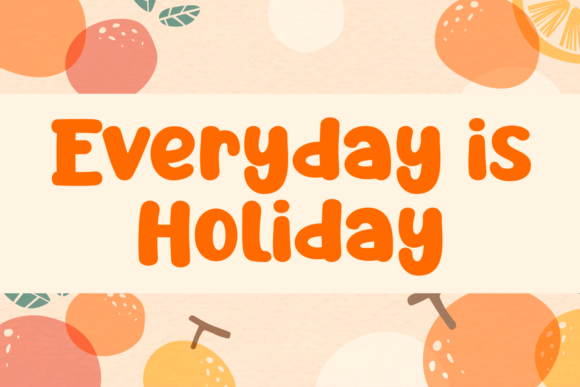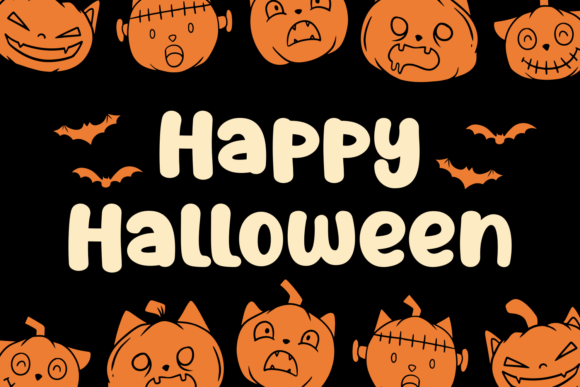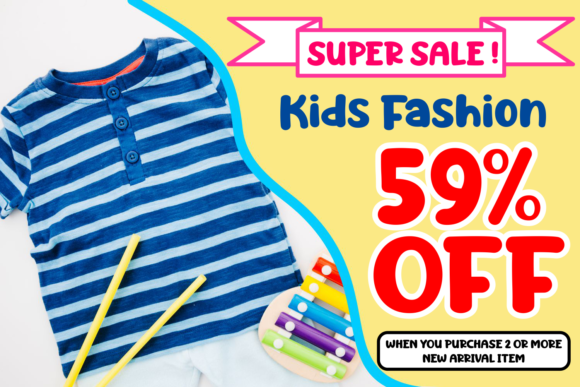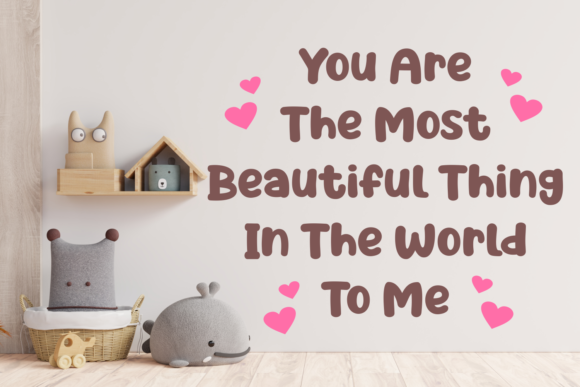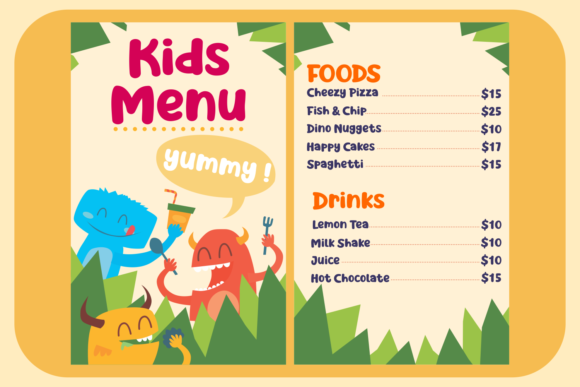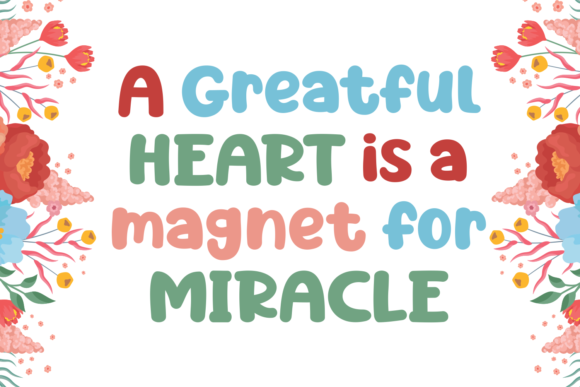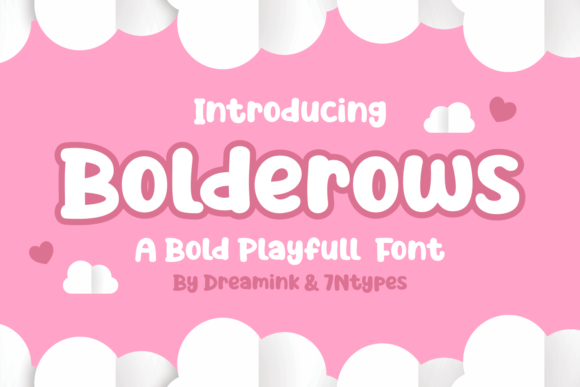
The Bouncy Charm of Bolderows Font: A Designer’s Delight
I still remember the design project that led me to discover Bolderows Font. I was working on a vibrant poster for a children’s event, and I needed a font that would capture the playful spirit of the occasion. After hours of scrolling through font libraries, I stumbled upon Bolderows – a bouncy and quirky display font that instantly won my heart. Its fresh and playful vibe was exactly what my design needed, and I knew right then that I had to share this gem with fellow designers and creative hobbyists.
An Honest Review of Bolderows Font
- ✨ Bolderows Font adds a unique, creative touch to any design, making it perfect for posters, thank you cards, quotes, greeting cards, logos, business cards, and more.
- ✅ Its bouncy and quirky style is sure to grab attention and leave a lasting impression.
- ✅ The font is versatile and can be used for both digital and print designs.
- ✅ It’s a great way to add some personality to your designs and stand out from the crowd.
While Bolderows Font is a fantastic addition to any design, there are a few things to keep in mind:
- ⚠️ The font’s bouncy style may not be suitable for very formal or professional designs.
- 🤔 Some of the font’s characters may not be suitable for small font sizes, so it’s best to use it for display purposes.
A Practical Guide to Using Bolderows Font
The Backstory of Bolderows Font
Bolderows Font was created by a talented type designer who’s passionate about creating unique and creative fonts. The designer’s inspiration for Bolderows Font came from their love of playful and quirky design elements. The font was designed to add a fresh and playful touch to designs, and it’s quickly become a favorite among designers and creative hobbyists.
| Font Name | Bolderows Font |
| Author | Dreamink (7ntypes) |
Q: What type of designs is Bolderows Font best suited for?
A: Bolderows Font is perfect for designs that need a creative and playful touch, such as posters, thank you cards, quotes, greeting cards, logos, business cards, and more.